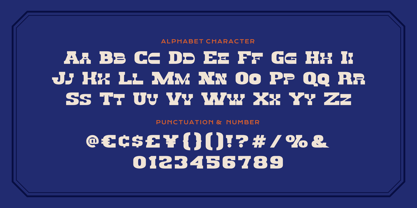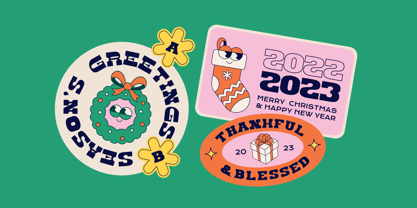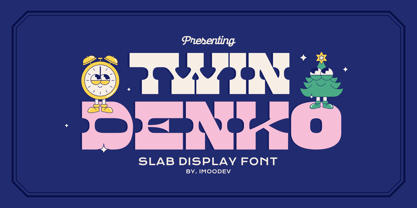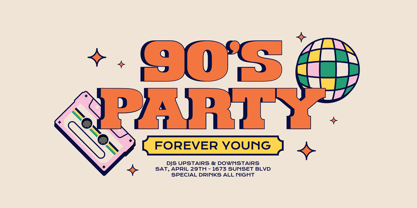
Twin Denko
by Imoodev
The Twin Denko Font Family was designed by Aulia Savira Putri and published by Imoodev. Twin Denko contains 1 styles. More about this family
Twin Denko is a slab display font that gives off a super playful, retro vibe. This font have those thick, blocky “feet” (serifs) at the ends of each stroke.
Perfect for party flyers, merch, social media posts, and any design that needs a big, in-your-face headline. It might be a bit much for paragraphs or serious branding, but for anything with “90s party” flair, it’s chef’s kiss.